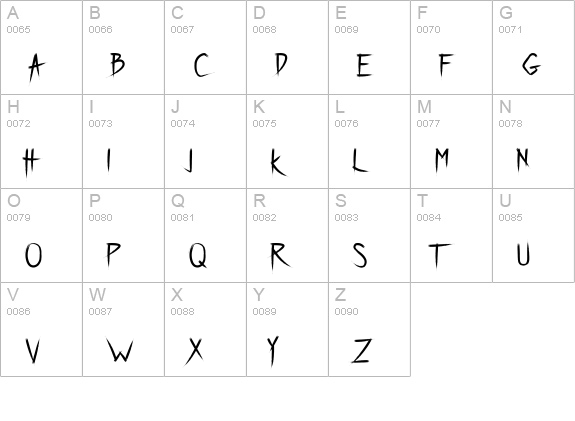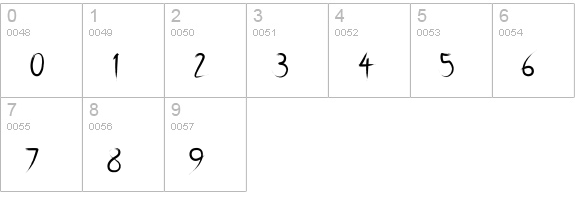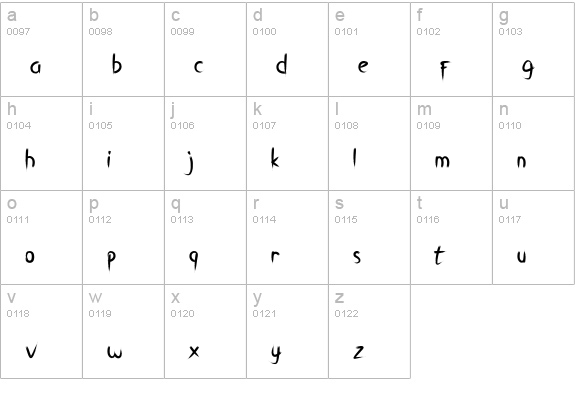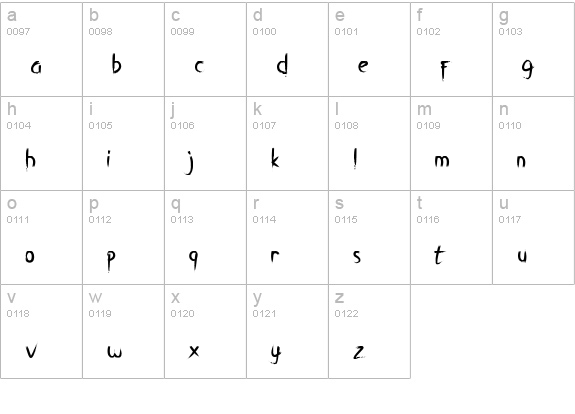
Breathe Karma Font Details
Breathe Karma is a free for personal use font in the Script > Brush category, designed by madeDeduk. It has been downloaded 260 times and is available for Windows, Mac and Linux.
Breathe Karma font is a beautifully crafted typeface that exudes elegance and sophistication. With its delicate curves and graceful lines, this font is perfect for adding a touch of class to any design project. Whether you're creating invitations, posters, or branding materials, Breathe Karma will surely make a lasting impression.
What sets Breathe Karma font apart is not only its stunning visual appeal but also its versatility. This font can be used for a wide range of design purposes, from logos to headlines to body text. Its clean and modern aesthetic ensures that your message will be conveyed clearly and effectively.